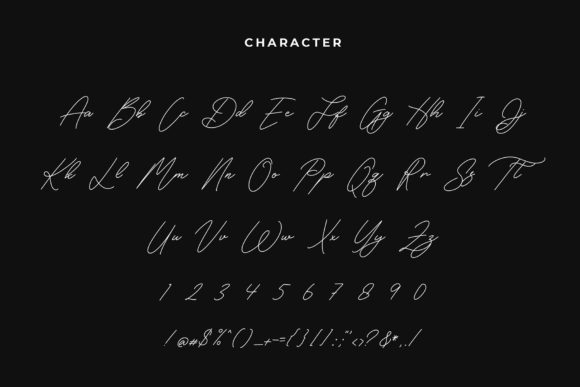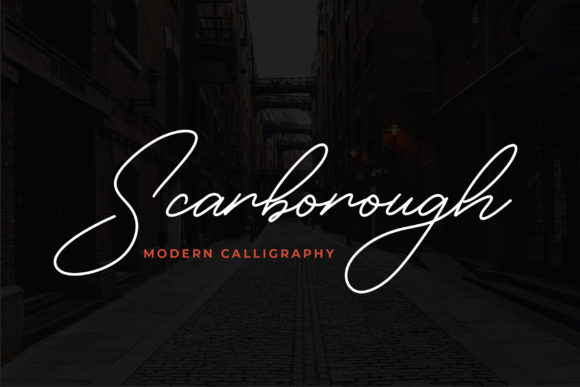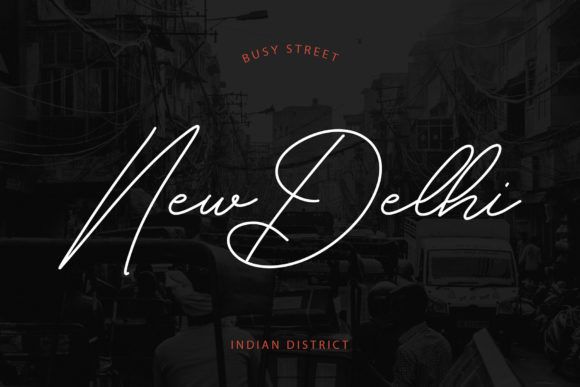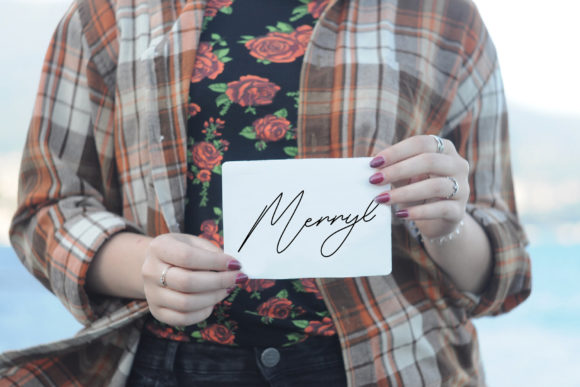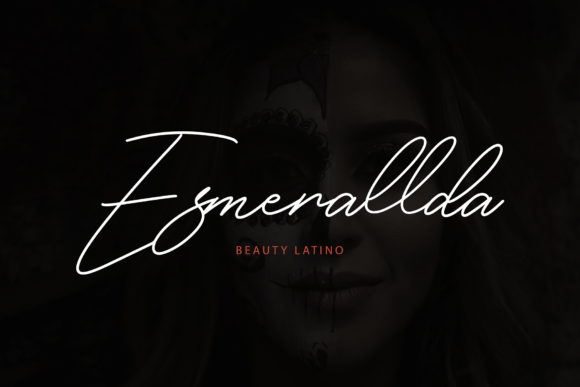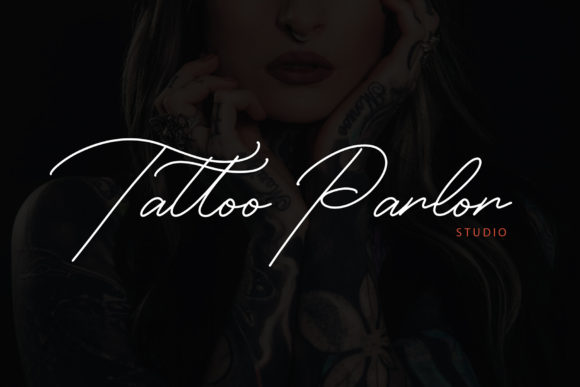
Scarborough Font
About Scarborough Font
Scarborough is a Modern Calligraphy Font with a mono line style. Fall in love with its elegantly playful nature!
Give your next project a stylish look with this wonderful font.